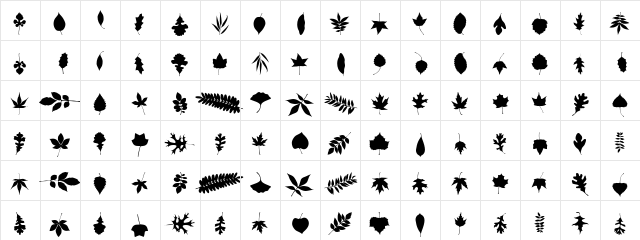
XLeefMeAlone Regular
Design Context for XLeefMeAlone Typeface
XLeefMeAlone is a composed and adaptable typeface that performs quietly and consistently across a wide range of design contexts.